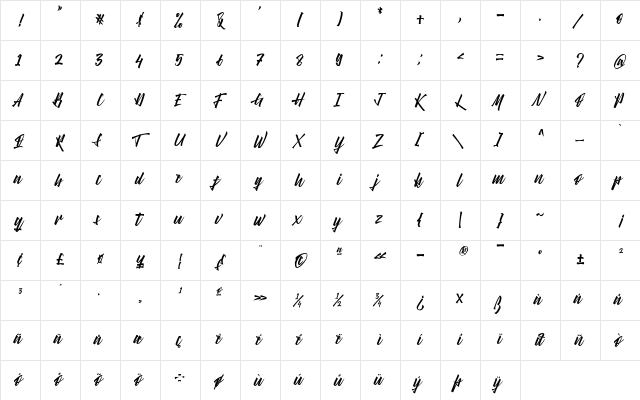
Right Times is a composed and adaptable typeface that performs quietly and consistently across a wide range of design contexts.
Pro Tip: Use Right Times in both headline and body roles to test its range before committing to a single application.